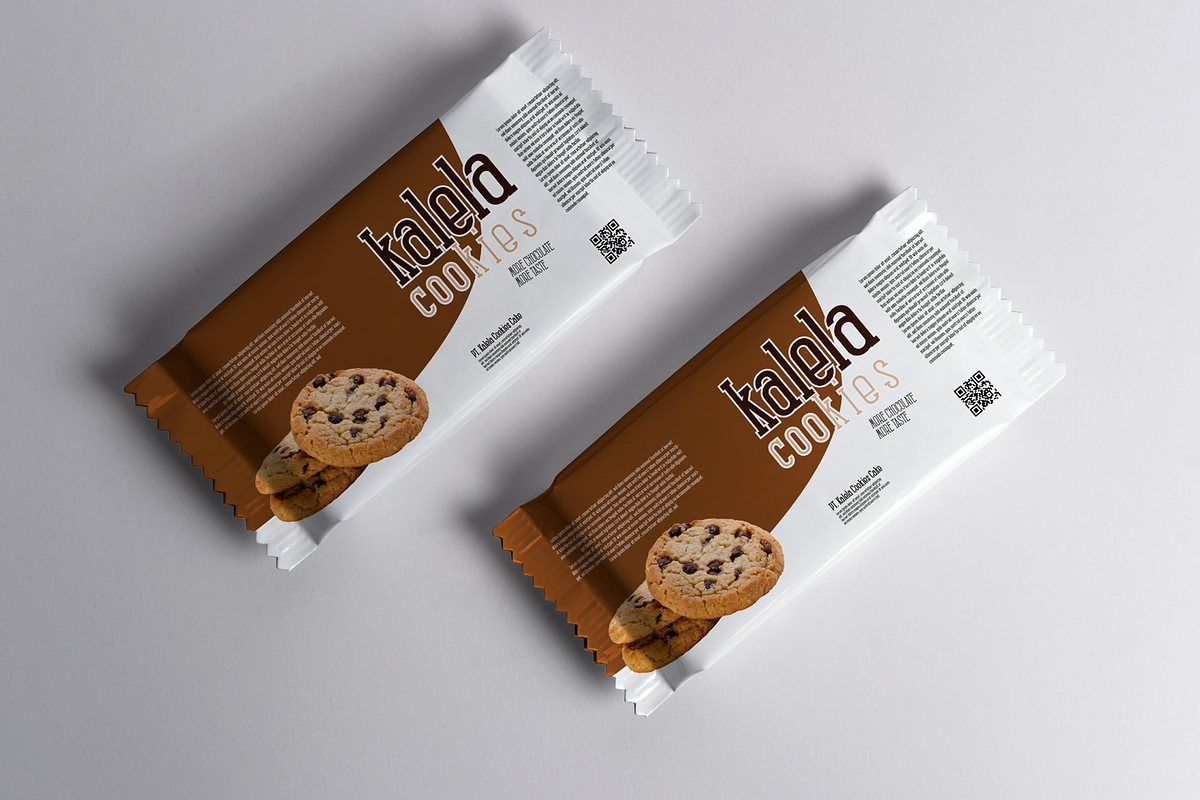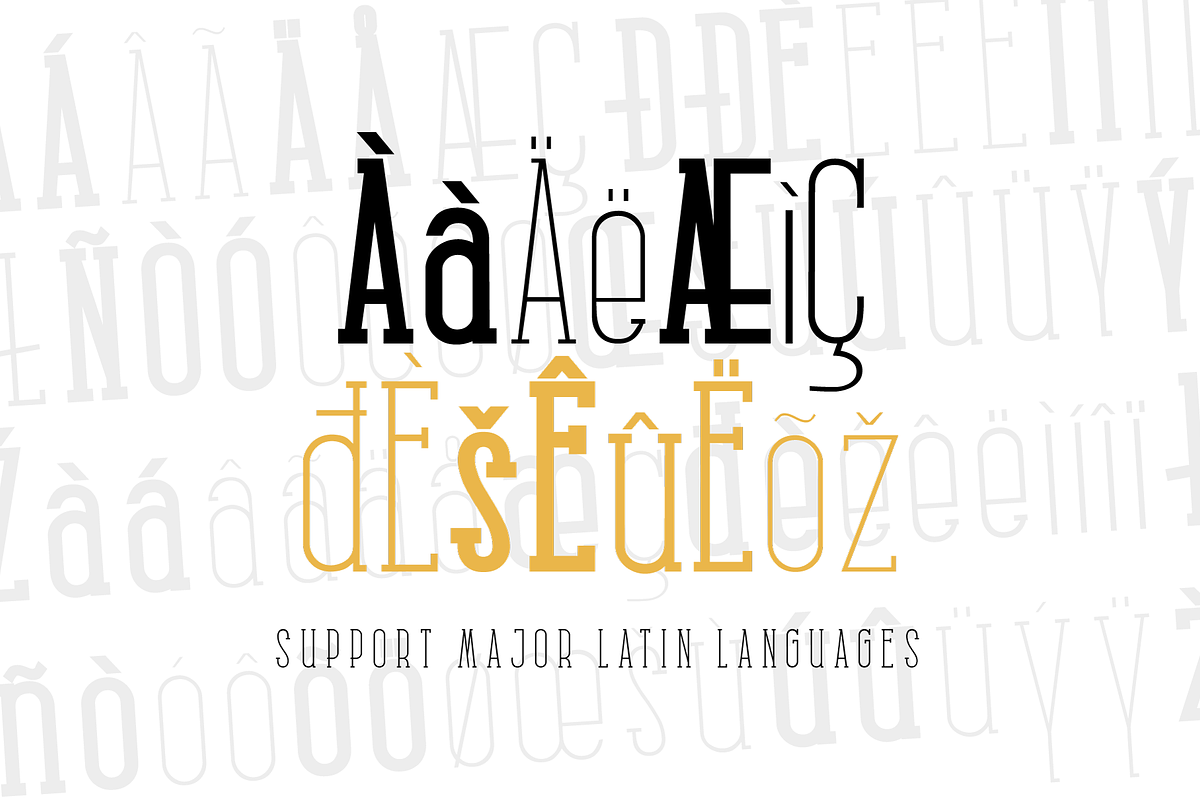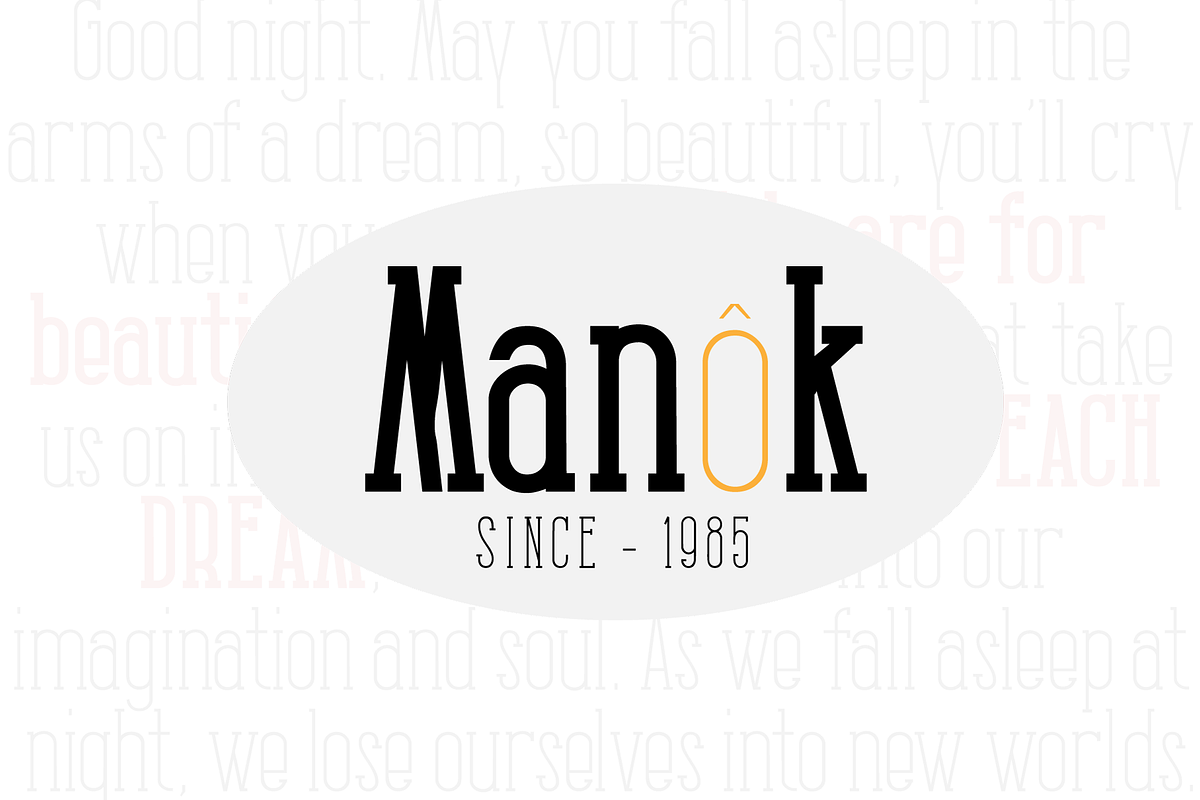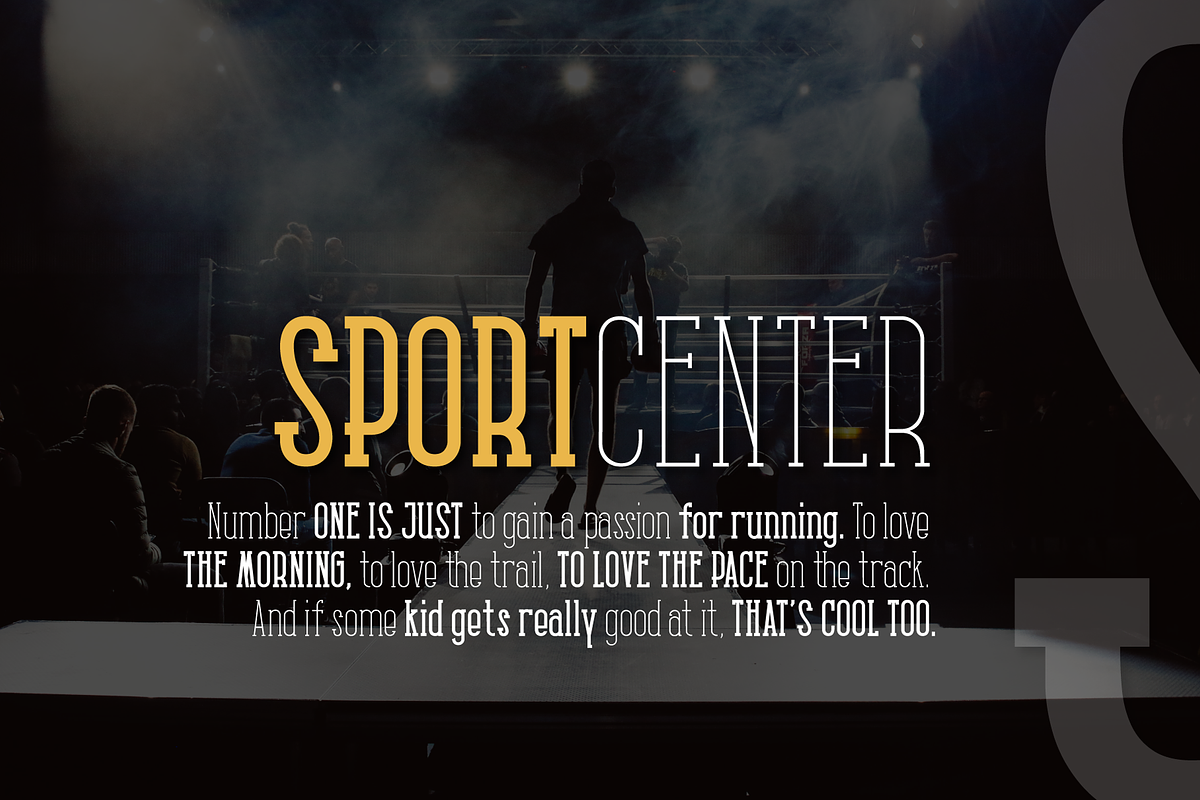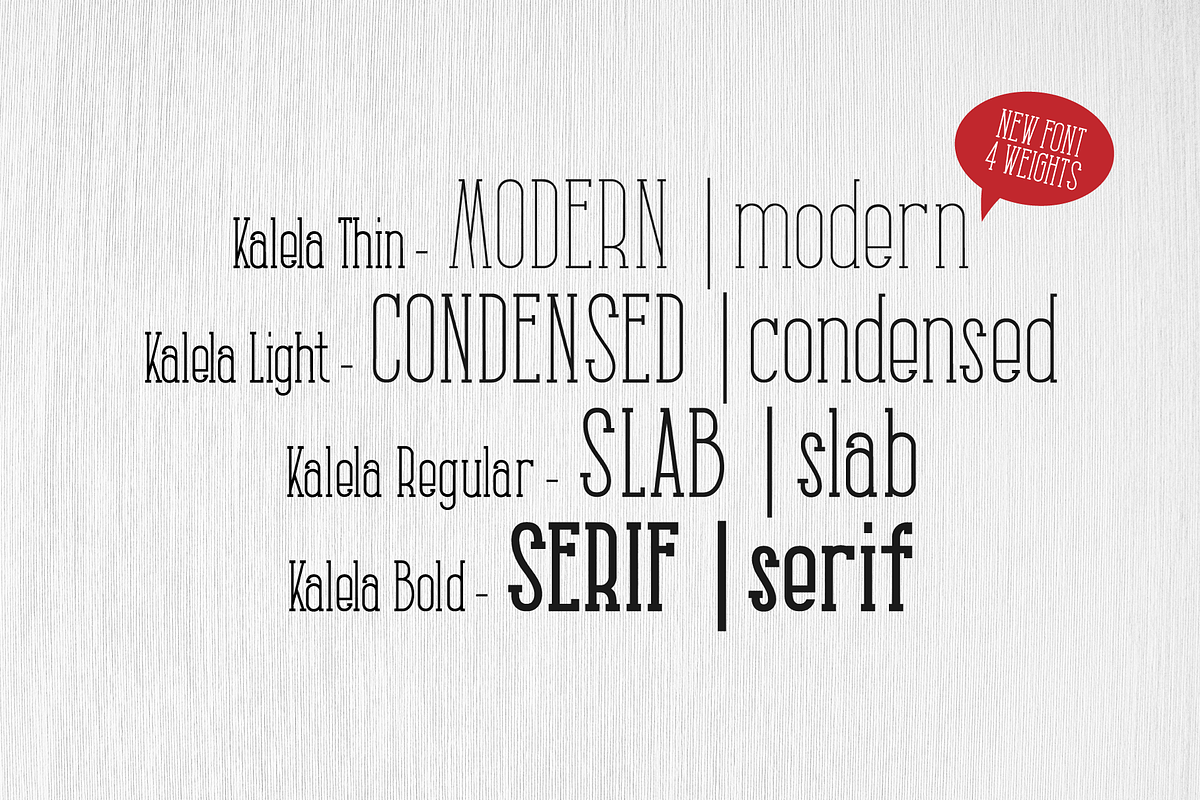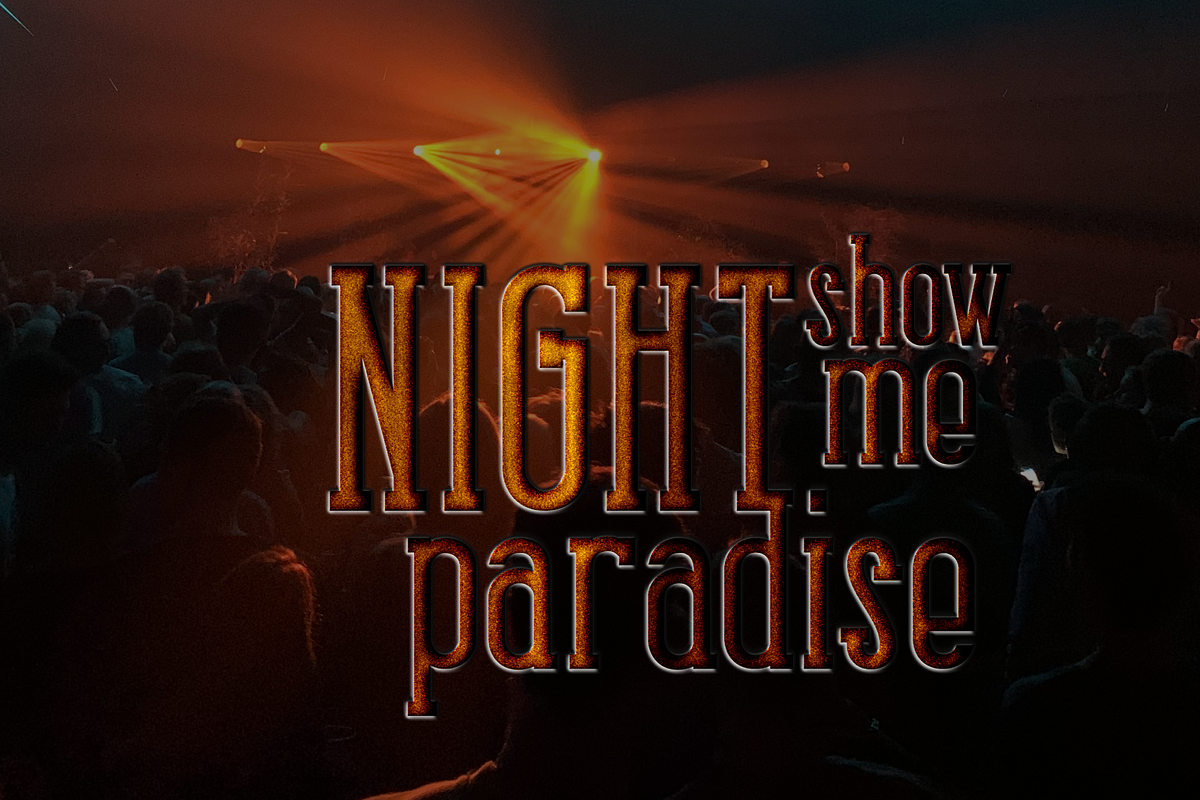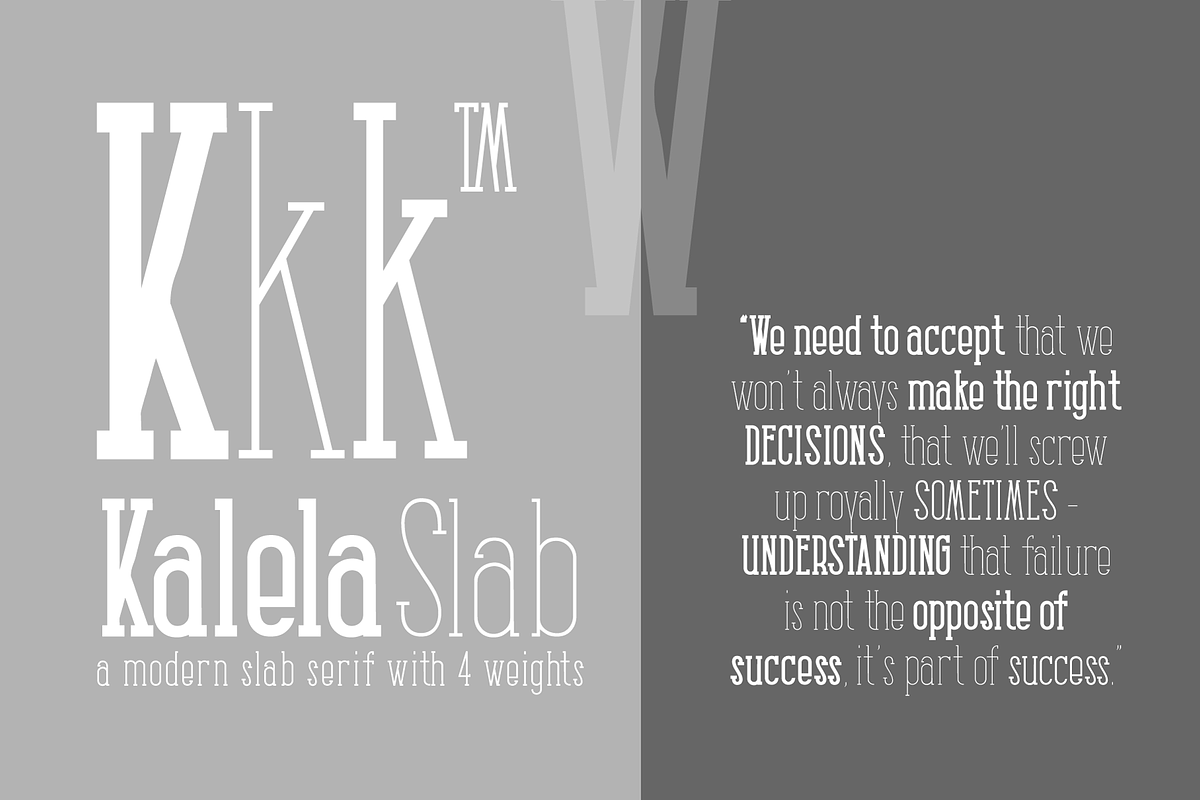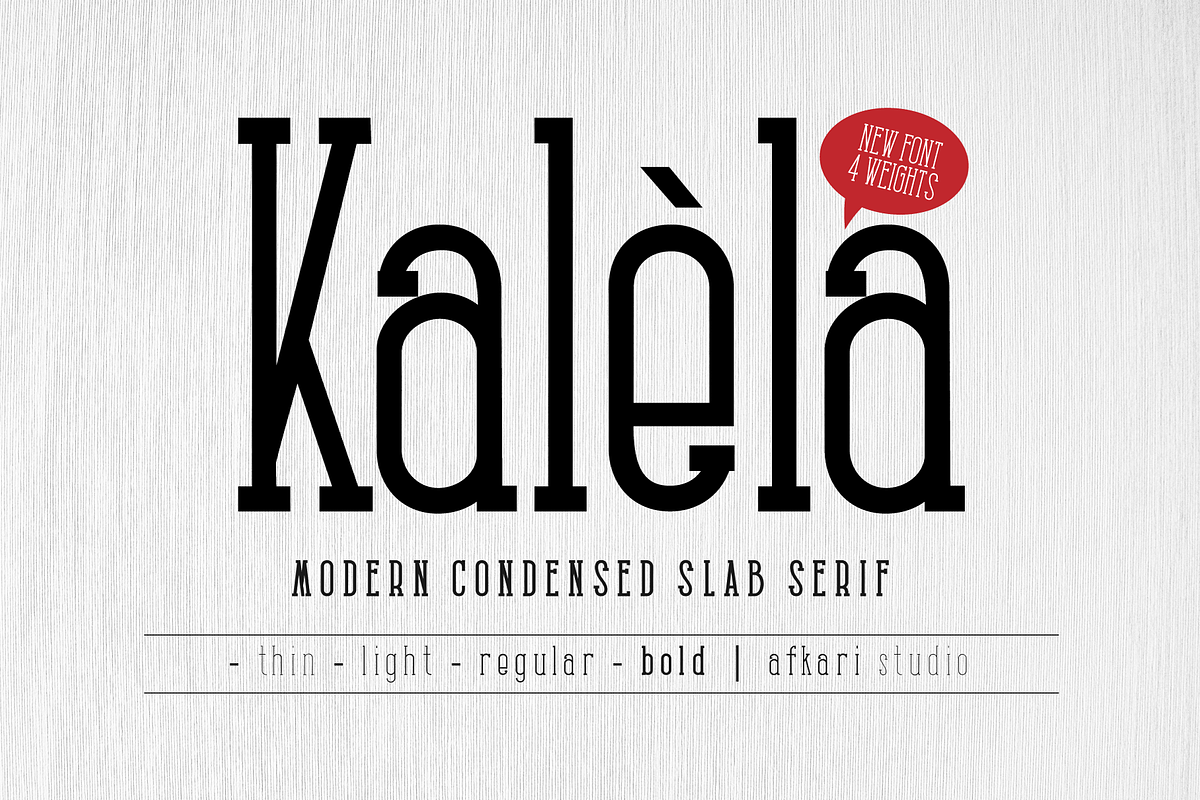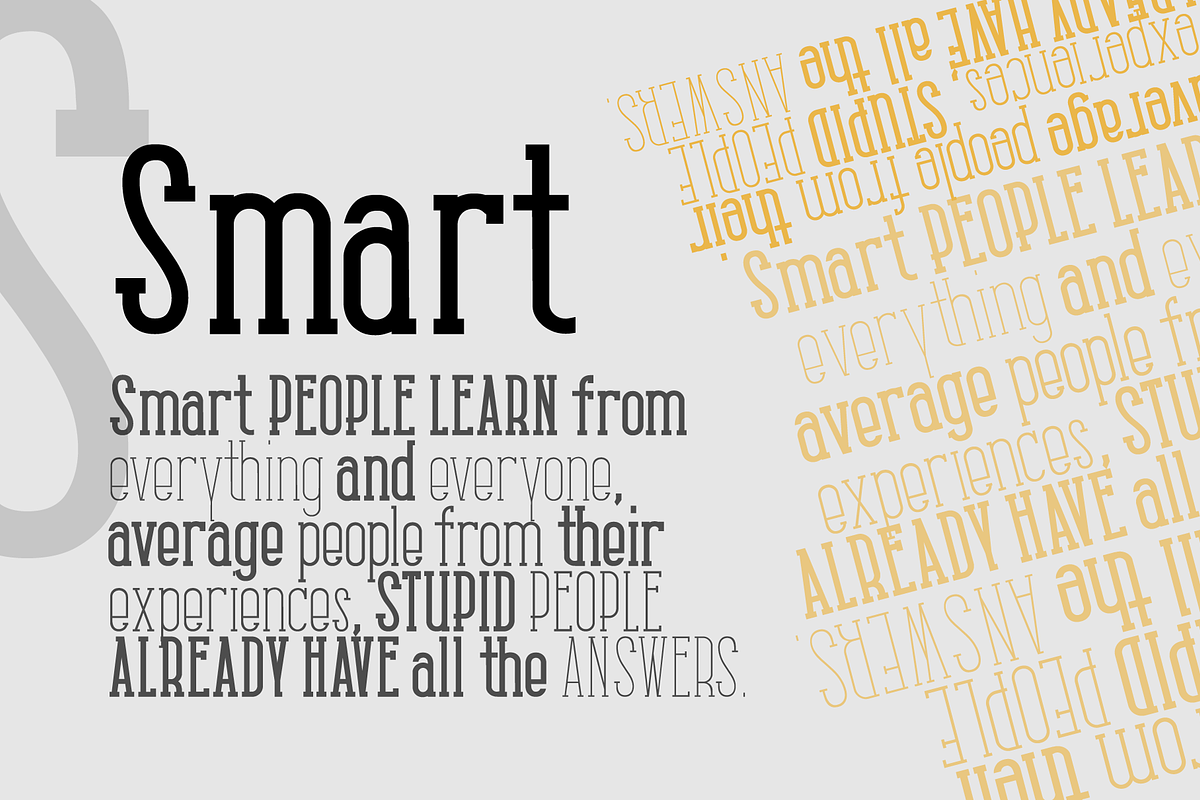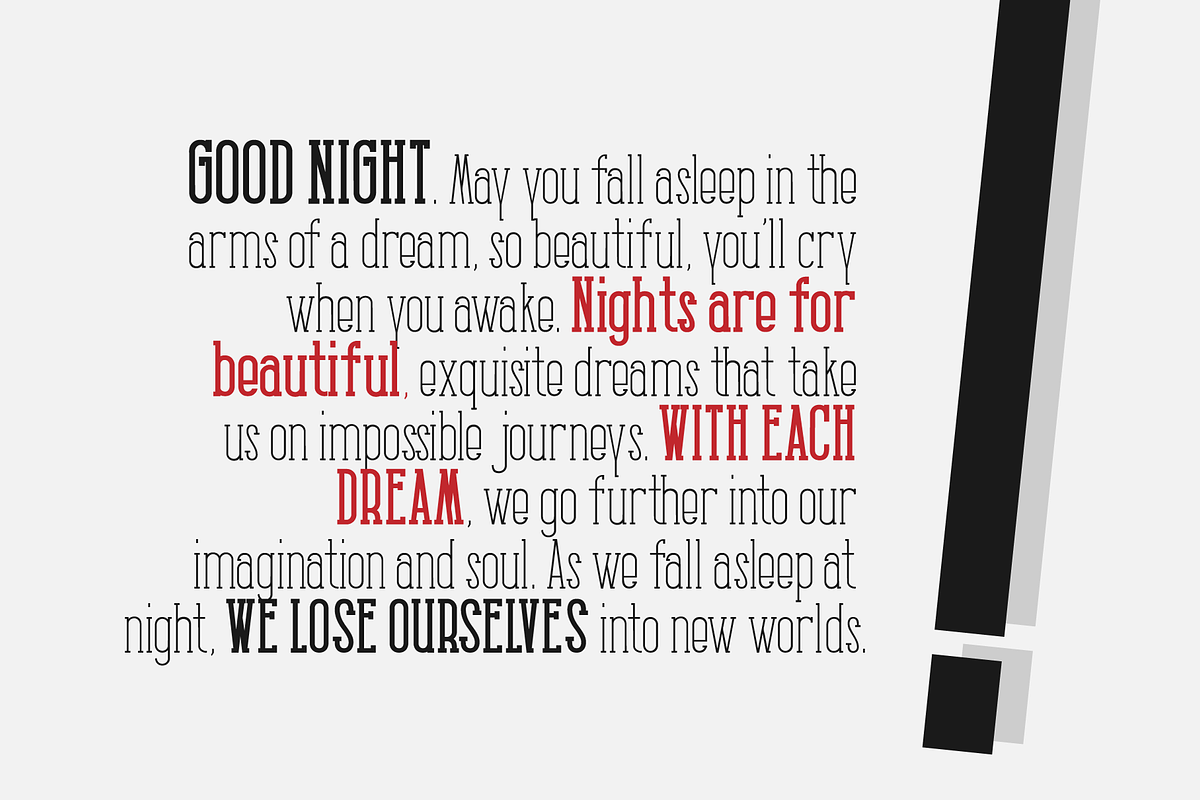
Kalela Slab - Condensed Slab Serif
Kalela Slab is Condensed Slab Serif Font a Modern Condensed Slab serif with solid font files. Suitable for branding, name card, stationary, design title, blog header, Logo, greeting cards, quotes, posters, art quote, typography.
Kalela Slab Condensed Slab Serif Font also suitable for your any projects.
Include: Kalela Slab With 4 Weight; Thin, Light, Regular and Bold
- Upper Case & Lowercase (All Caps)